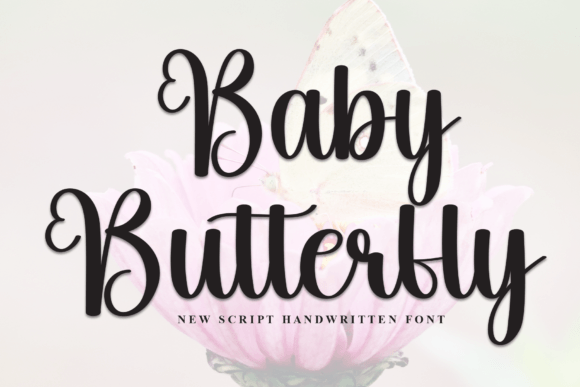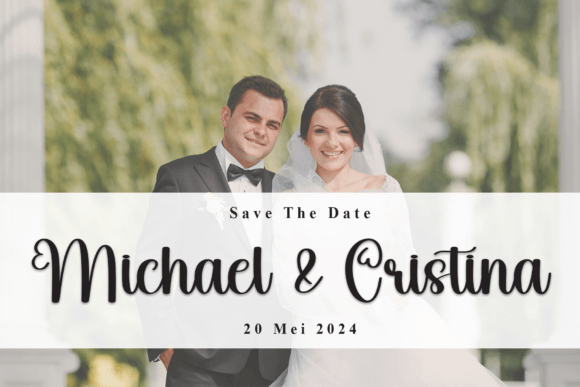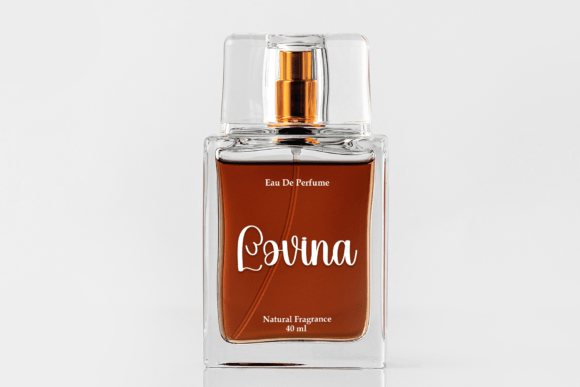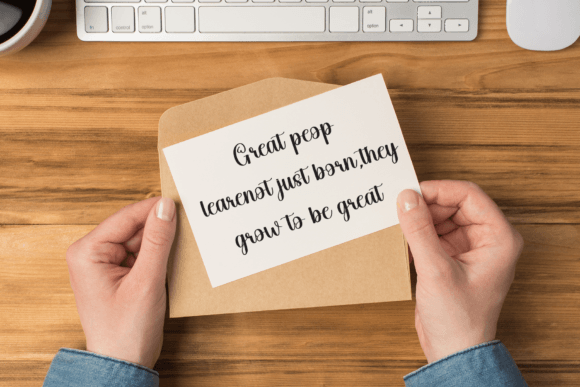
Baby Butterfly Font: Cute Handwritten Script for Wedding Design
About the Baby Butterfly Font
Elevate your designs with Baby Butterfly Font, a font that combines sophistication with readability. Discover the charm and affability of this delightful handwritten font. Adorned with a sweet and friendly appeal, this unique typeface brings out the fun side of creativity. Perfect for crafting enchanting wedding invitations, heartfelt cards, or sprucing up any design craving a playful touch, this font elevates your message while preserving an elegant whimsy. Embrace the joy of friendly and cute typography with this captivating handwritten font.
Baby Butterfly shines in projects requiring a lighthearted and friendly touch. Ideal applications include short headlines, social media graphics, branding for children’s products or sweet treats, and wedding stationery. Its whimsical nature makes it less suitable for large blocks of text or user interfaces where readability is paramount.
Consider pairing Baby Butterfly with a clean sans-serif like Lato for a balanced contrast, or a delicate serif like Playfair Display for a more classic feel. For a playful juxtaposition, a geometric sans-serif such as Montserrat could add a modern edge.
The font’s core personality is undeniably playful and friendly, yet retains a touch of elegance. Avoid using it in contexts demanding seriousness or professionalism.